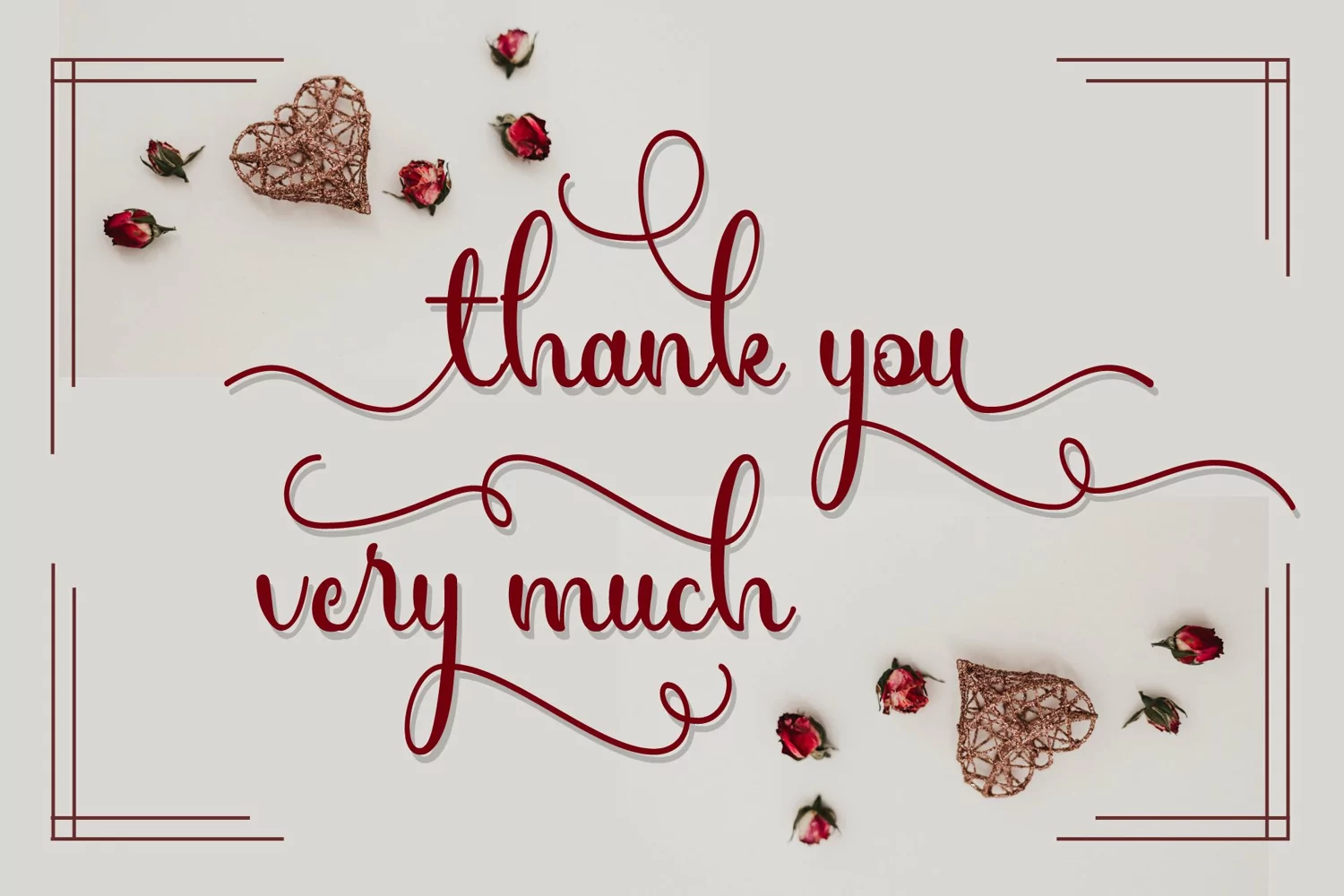
Hello, Introducing our latest product, Marsella, is a beautiful script font. Swash at the beginning and ending of every letter make any design projects so beautiful, especially when combined matching with other letter variations. Marsella is very beautiful for many design projects such as product brand, quotes, clothes, business card, wedding invitation, signature, logos, lettering, etc. Various kinds of alternate characters that will surely enhance every design projects. Please enjoy this font ! Thanks for visiting and downloading my font. Here are many features in this font : Marsella otf Marsella ttf PUA encoded Numerals and Punctuations There are many sophisticated alternate characters. Thank You Have a Nice Day.